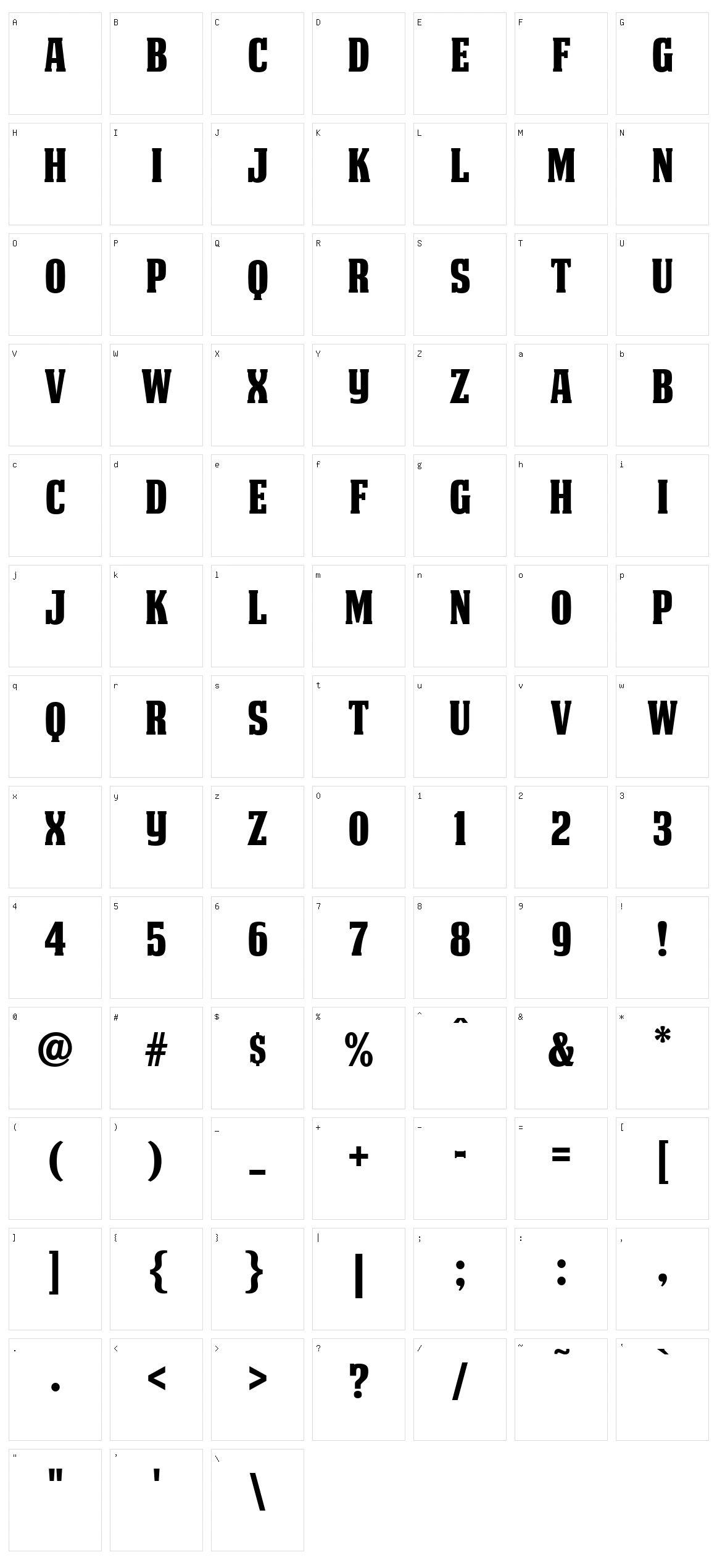
DEATHE MAACH NCV (pronounced "deeth mawsh") is the Non Commercial Variation of the commercial font, DEATHE MAACH 3891.
While the freeware version of DEATHE MAACH arrives on your keyboard with Upper Case letters only, the commercial version of this font includes a complete range of lowercase characters. All versions of the DEATHE MAACH font include OT features and character replacement options.
DEATHE MAACH is a six-font family of descending weights with the strength and stamina to face all comers. So pistols out, barrels forward. This font is ready to enforce and serve.